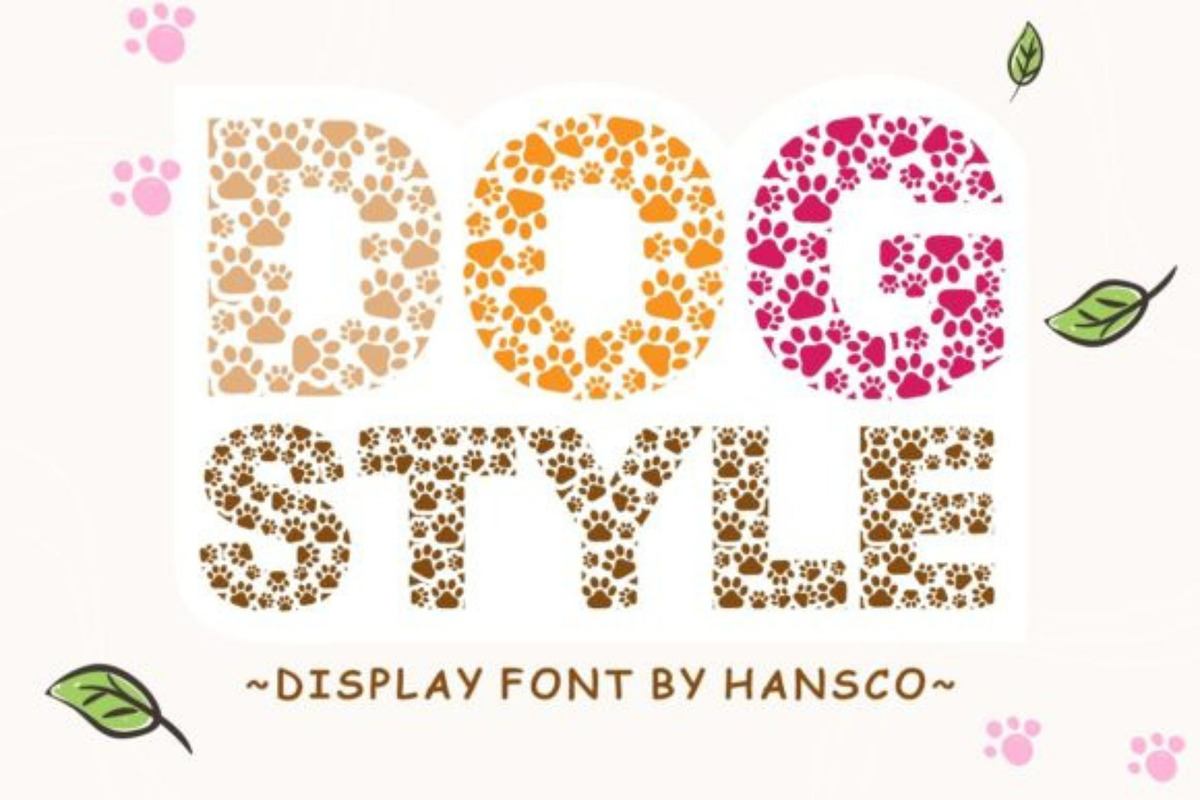
Dog Style Font Free Download
Dog Style Font Free Download is a fun, playful typeface inspired by the charm and personality of our four-legged friends. With its quirky curves and friendly design, this font is perfect for pet-related branding, children’s books, greeting cards, T-shirt designs, and social media graphics that need a dose of cuteness and character.
Whether you're designing for a pet grooming business, a dog-themed product line, or a lighthearted creative project, Dog Style brings a warm and approachable vibe to your work. It's easy to read, full of personality, and ideal for both print and digital use. You can download it for free to try it out, but a commercial license is required if you plan to use it professionally or for profit.
Bring your ideas to life with Dog Style Font Free Download and add a tail-wagging touch of creativity to your designs. It’s a must-have for animal lovers, pet brands, or anyone looking to infuse their work with a little extra bark and charm.